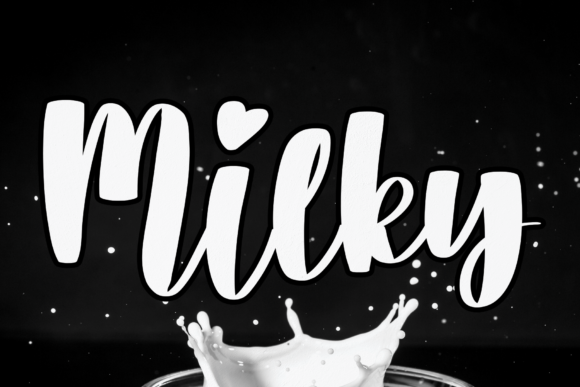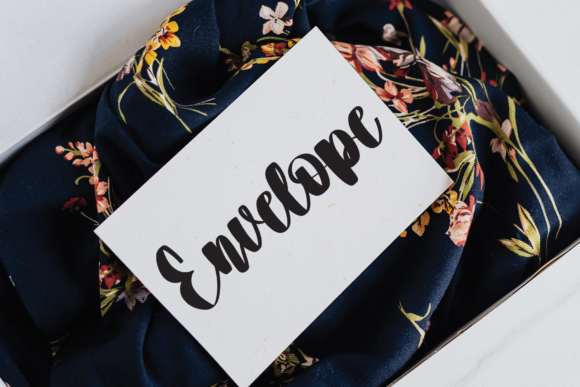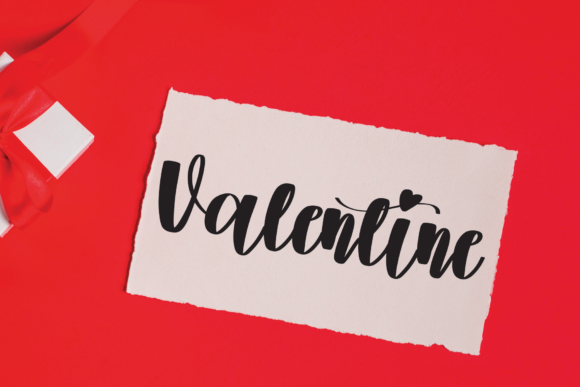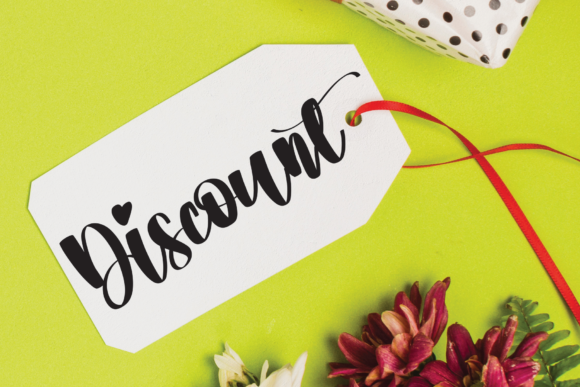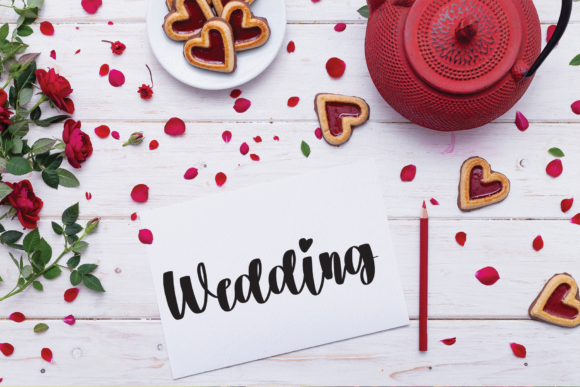
Milky Font
About Milky Font
Milky is a cool, fun and chic handwritten font. Whatever the topic, this font will be a wonderful asset to your font library, as it has the potential to enhance any creation.